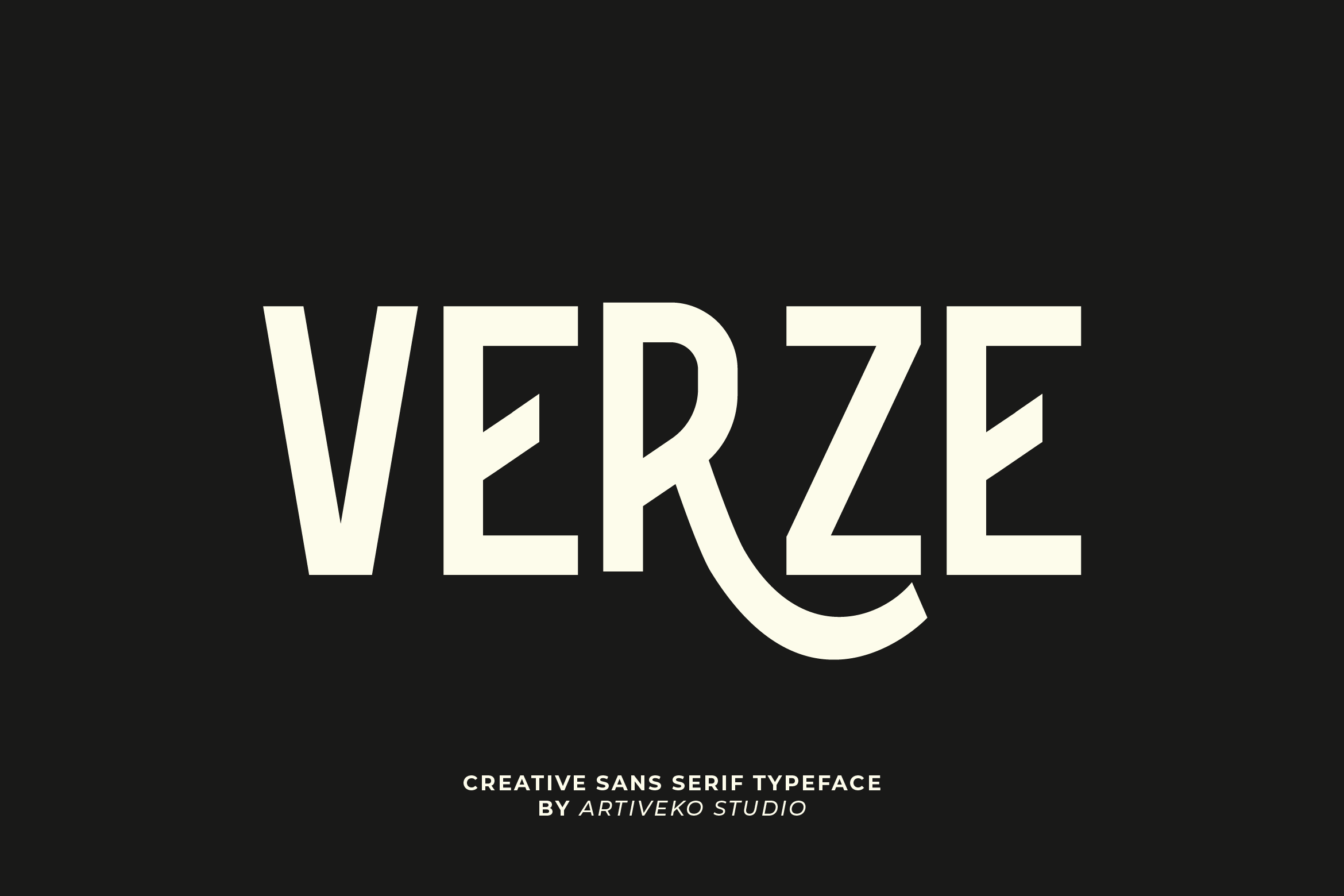
- Verze Creative Sans Serif Font
Verze is a powerful sans serif font crafted to deliver impact and clarity. With its bold weight, sharp edges, and geometric precision, Verze is perfect for branding, headlines, posters, product packaging, and digital graphics that require a strong visual presence.
Its clean yet commanding letterforms ensure excellent readability while adding confidence and sophistication to any design. Whether you’re creating a modern logo or an attention-grabbing marketing campaign, Verze offers the perfect balance of strength and style.
The font includes uppercase and lowercase letters, numerals, punctuation, multilingual support, and stylistic alternates for enhanced creative flexibility.
Make your design bold and unforgettable with Verze — the sans serif font that defines modern power and elegance.